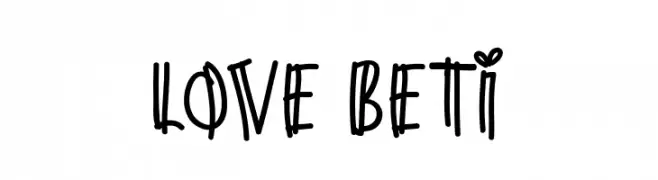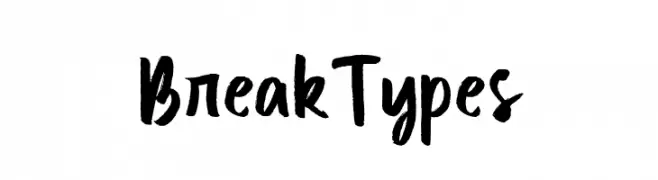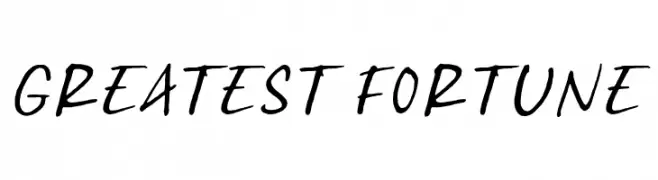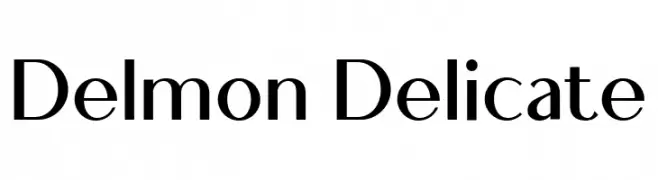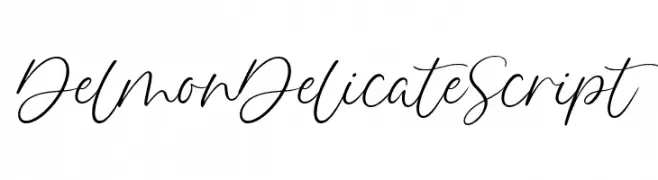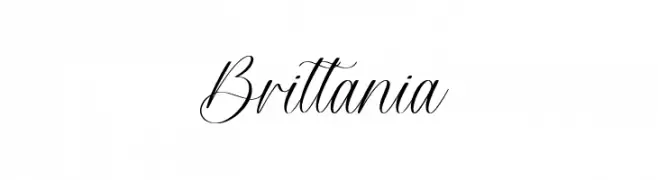
A playful, handwritten font with bold, irregular strokes and whimsical details.
A bold, expressive handwritten font with brush-like strokes.
A dynamic, angular font with a modern, edgy style.
A bold, dynamic script font with a handwritten, energetic style.
A modern, geometric font with a futuristic and clean design.
A casual handwritten font with fluid, slanted strokes and a personal touch.
A modern, elegant font with clean lines and a sophisticated appearance.
A playful, handwritten-style font with consistent stroke width and friendly appearance.
A delicate and elegant script font with flowing, connected characters.
A graceful script font with elegant, flowing calligraphic strokes.